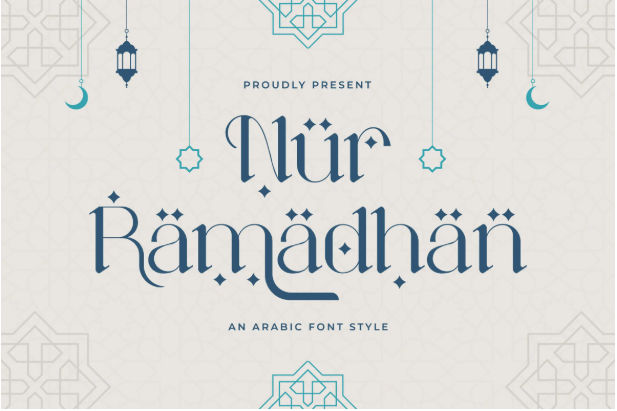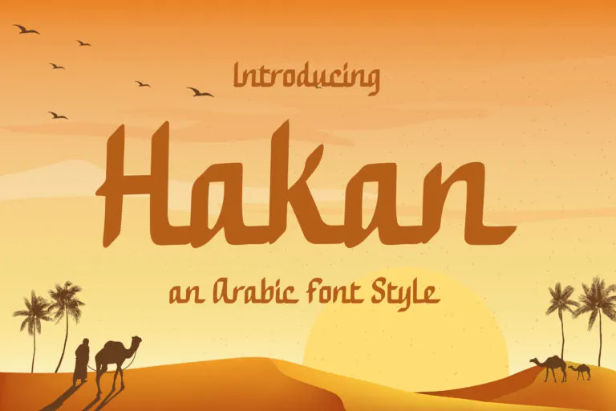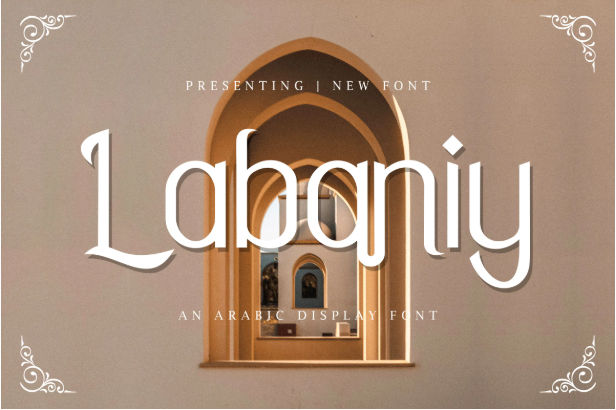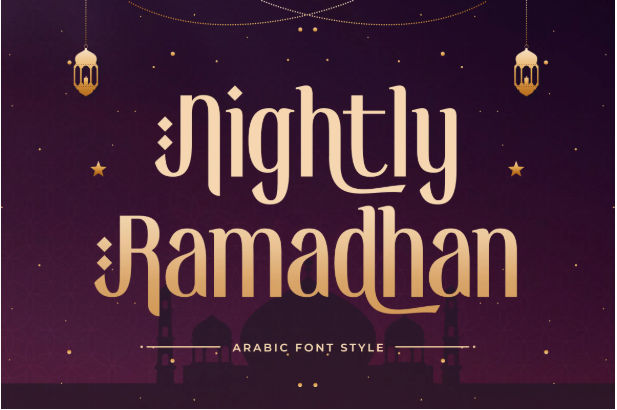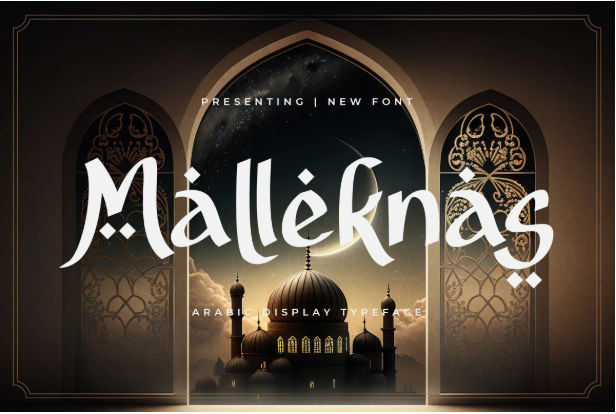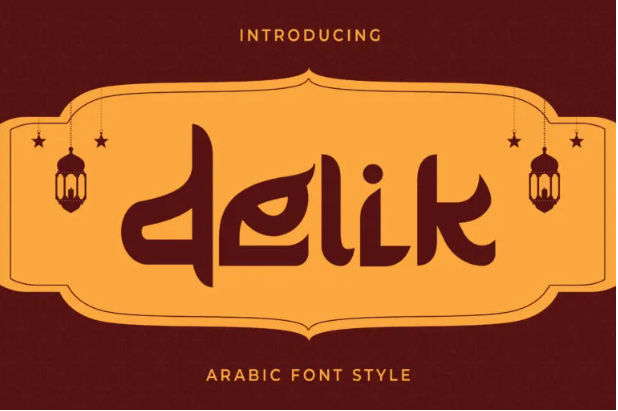
Ramadhan Font: Top 15 Unique Fonts For Your Branding Needs
Ramadhan is just around the corner, and staying current with market trends can boost sales effectively. With our top Ramadhan font, you can seamlessly adapt to this season and channel your overflowing creativity.
The Best Ramadhan Font Selections
Our Arabic Ramadhan fonts are made to fit the cultural richness of the Arabic aesthetic. Hence, we carefully combine twists, calligraphic style, and ornaments with the legible alphabet to provide the best 15 Arabic typefaces. Let’s get to know each of their characteristics.
1. Nur Ramadhan
Starting with Nur Ramadhan, as the name suggests, this font is particularly made for this season. This Arabic font style perfectly captures the delicate flow and ornaments of the Arabic language using the serif-style alphabet. Each letter had iconic dots to liven up your festive design further.
2. Namhala
Namhala is an exquisite Ramadhan font that combines calligraphic style with a dapper alphabet. Looking closely, this font had all the styles, the uppercase letters have a touch of blackletter typeface while the lowercase letters create a new script font style.
3. Labaniy
If you are looking for a beautiful font for a versatile look, Labaniy is your best choice. The font understands that Arabic hijaiyyah is written from right to left, so it added flair on the left side of the letter. Of course, it still brings ornamental dots. Interesting fact, it has a touch of Javanese aesthetics too.
4. Raisyar
Only in the hands of an exemplary designer, this intricate font can exude its full potential. Raisyar is a display font with a thin monoline characteristic. It has a wild representation of the uppercase letters and essentially script lowercase letters. Of course, the free-flowing Arabic aesthetics is still the base aesthetic of this font.
5. Nightly Ramadhan
Nightly Ramadhan is the perfect Ramadhan font for your designs. The font has great legibility by opting for simplistic ornaments. Even so, the ligatures and alternates bring a graceful branch to the typeface. So, if you are leaning toward delivering a digestible message, Nightly Ramadhan is perfect for you.
6. Malleknas
Malleknas is another font that combines Arabic characteristics with a modern font style, this time with a street graffiti style. While more subdued than typical graffiti, this font successfully blends Arabic calligraphy with street art elements.
7. Delik
For a more casual tone on your design, use Delik. This font only has uppercase letters, yet you can employ small caps letters provided to create a better text hierarchy.  The font has thick strokes and a wild representation of the alphabet, perfect for grabbing attention.
8. Shayan
Shayan is the font with the most accuracy in adopting Arabic hijaiyyah into the alphabet. It has the style of the older Arabic calligraphy strokes and also wisely features ornamental dots only in the proper letters. On top of that, the font has a strong and stylish presence.
9. Haejrah
Haejrah is the modern take on the Arabic-style font. There are so many details in each letter, combining uniform curves, firm lines, and neat cuts. Haejrah’s lowercase letters are connected one to another and so are some of the uppercase letters.
While it offers ligature and alternate style, you can utilize kernings to connect each letter and turn them into cohesive cursive fonts.   The font has a neat design, combining Arabic and Egyptian traditional typefaces.
10. King Malik
An interesting font that took inspiration from a Turkish typeface. You can find this kind of font in some Turkish paintings or old literature. It has a dash of black letter typeface style but with a more tamed accent, especially in the uppercase letters.
11. Aslah
Aslah is considered an italic font in Turkish font style. Its slanted fonts introduce a motion to your design. The rigid and “squared” typeface is perfect to complement the flowy Arabic fonts, although you can always put this font in the spotlight.
12. Amal Baik
Amal Baik is a modern Ramadhan font. The font still has the essence of what an Arabic font style looked like, yet also introduces a casual and playful style. The lowercase letters are connected from the bottom just like hijaiyyah does, not from the top like script font.
13. Hakan
Hakan is an example of an Arabic font inspired by the old scroll writing style. It is a perfect choice for representing native Arabic typeface since the font has a quill writing style. Both the uppercase and lowercase letters are connected from the bottom with minimal ornaments for better legibility.